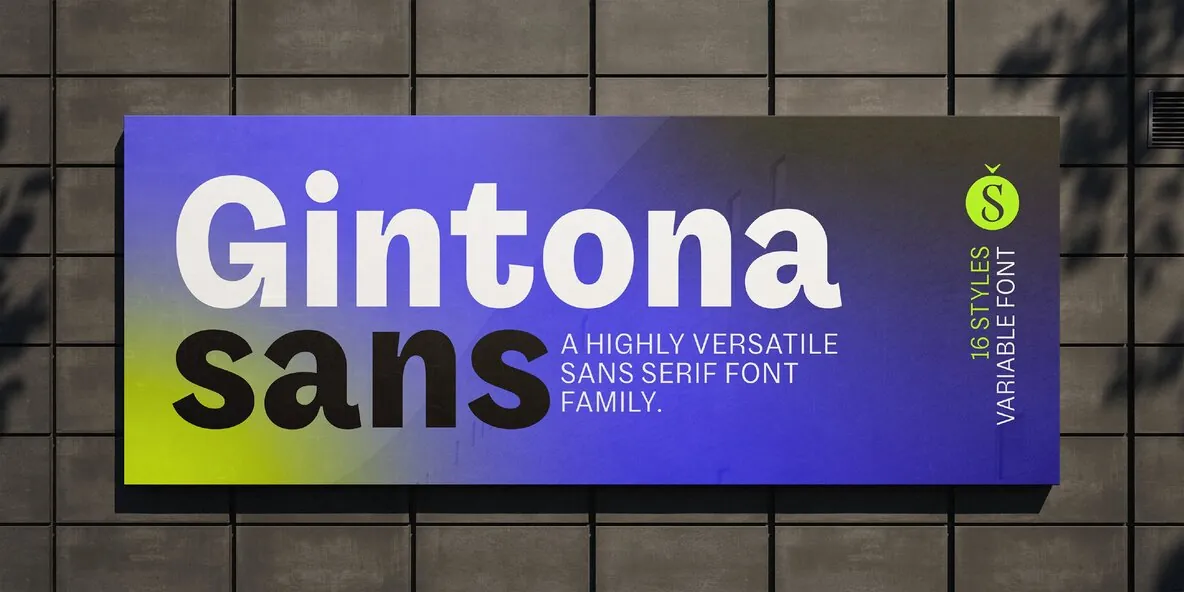
Gintona Sans — Energy, Set with Precision
Gintona Sans is a modern, versatile sans serif with the distinctive spirit of the Gintona family. With 8 weights and a variable version, it fits naturally into editorial design, branding systems, and digital interfaces. Use it for long-form reading, UI typography, or identity work where clarity matters and tone still carries.
By shedding the sturdy serifs of Gintona Slab, this sans version brings more fluidity while keeping its sense of energy and precision. Balanced proportions and carefully drawn forms give it a fresh, dynamic feel. It performs reliably in immersive text settings, bold headlines, and graphic compositions where detail and rhythm need to stay consistent.
Choose Gintona Sans when you want a contemporary typeface with character—adaptable across diverse applications without losing a distinct identity. It stays disciplined in structure, yet expressive enough to hold attention across print and screen.